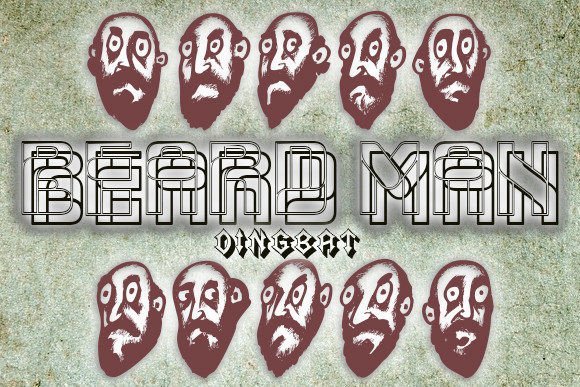
Introduction to Beard Man Font
Beard Man is an awesome dingbats font that will fit any of your designs.
Use this creative and unique typeface on posters, t-shirts, and prints .
Key Features of Beard Man Font